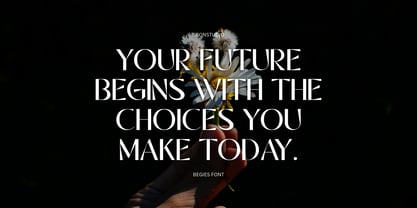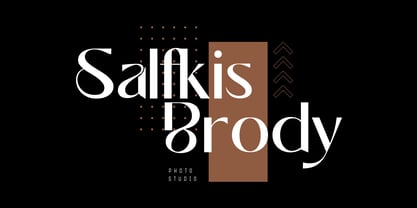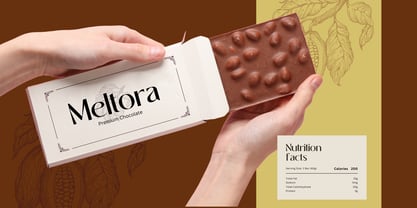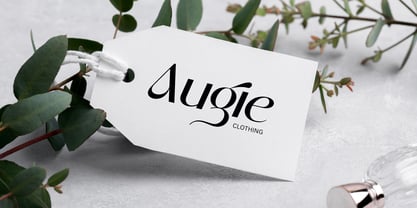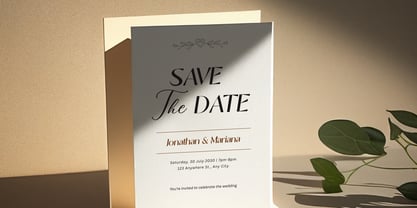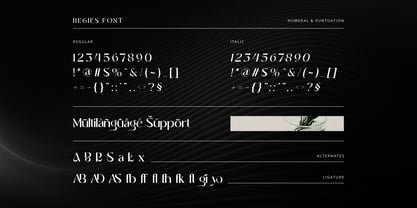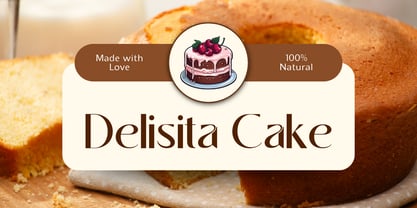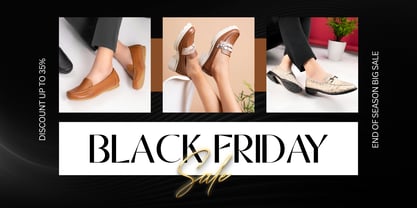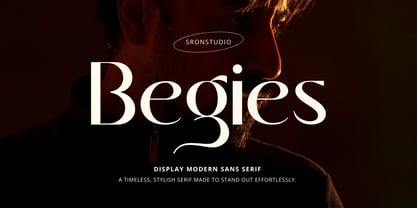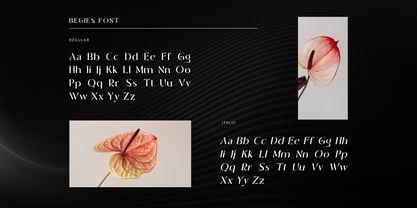
Begies
by Sronstudio
The Begies Font Family was designed by Muhamad Yusron Billah and published by Sronstudio. Begies contains 2 styles and family package options.
Begies is a modern display font designed to make every headline stand out with style and confidence. Featuring clean shapes, bold curves, and a contemporary aesthetic, this font is perfect for branding, posters, packaging, editorial layouts, and eye-catching logos. Begies blends modern simplicity with striking character, giving your designs a fresh and memorable look. What’s Included: - Regular & Italic styles - Alternates & ligatures - Numerals & punctuation - PUA encoded for easy access - Multilingual support - Works seamlessly on Mac & Windows Thank you very much 🙂